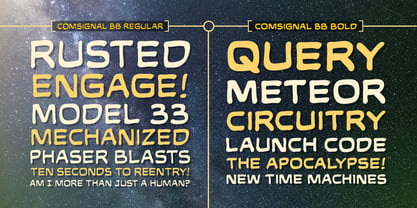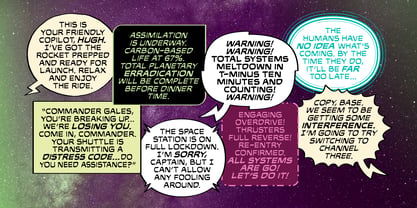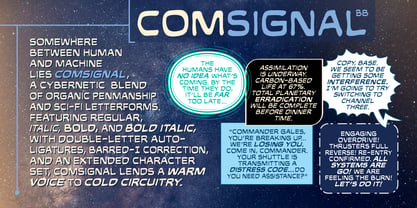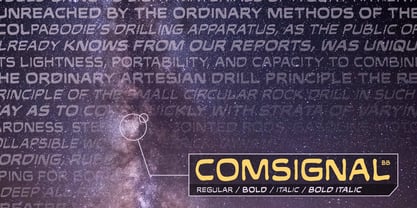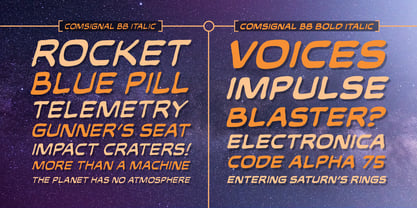
Comsignal BB
por Blambot
La familia tipográfica Comsignal BB fue diseñada por Nate Piekos y publicada por Blambot. Comsignal BB contiene 4 estilos y opciones de paquete familiar. Más información sobre esta familia
Somewhere between human and machine lies Comsignal BB--a cybernetic blend of organic penmanship and sci-fi letter forms. featuring regular, italic, bold, and bold italic, with double-letter auto-
ligatures, barred-I correction, and an extended character set, Comsignal BB lends a warm voice to cold circuitry. Designed by award-winning comic book letterer, Nate Piekos.
Diseñadores: Nate Piekos
Fundición: Blambot